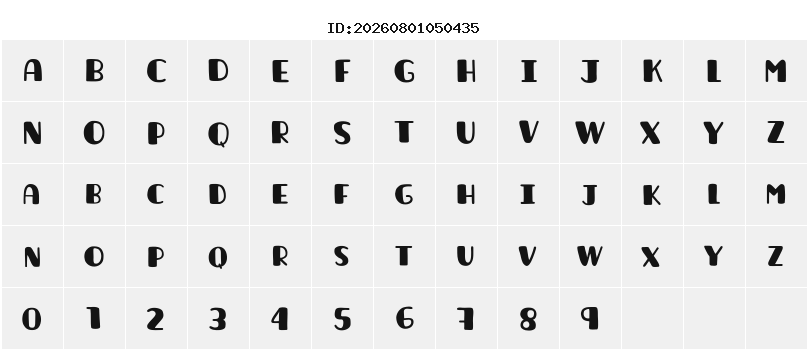
• Font Name: La unica
• Designer: Estefania (Hormigo) Mata
About La unica.ttf
La unica.ttf is a modern, elegant sans-serif font designed for ultimate readability and visual harmony. Perfect for branding, headlines, web design, and print materials.